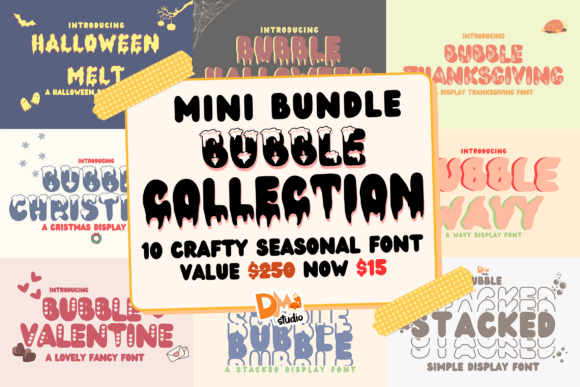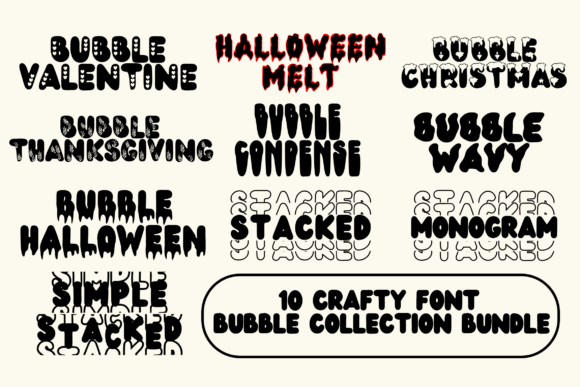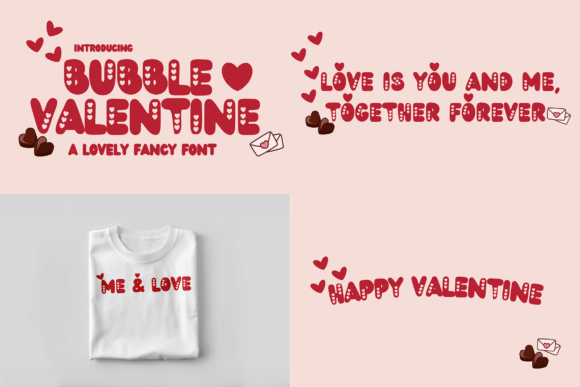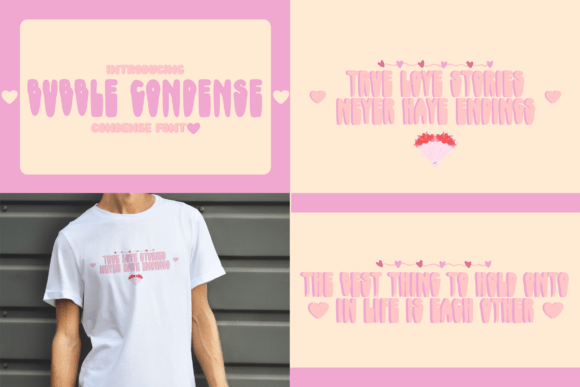
Bubble Collection Font
About the Bubble Collection Font
Get ready to be inspired by Bubble Collection Font, a fresh and dynamic typeface for modern creators. Introducing the Bubble Collection Mini Bundle, a fun and creative set of 10 crafty seasonal fonts designed to bring joy and personality to your projects! This collection features playful and unique display fonts inspired by different festive themes, making it perfect for holiday designs, greeting cards, posters, branding, and more.
Halloween Melt – A spooky, drippy Halloween font
Bubble Halloween – A fun and eerie font with a melted effect
Bubble Thanksgiving – A warm and festive Thanksgiving-inspired font
Bubble Christmas – A cute and bubbly Christmas display font
Bubble Valentine – A romantic and playful font for Valentine’s Day
Bubble Wavy – A wavy and fun display font for creative projects
Bubble Stacked – A unique layered bubble-style font
Bubble Stacked Monogram – A unique Hollowe Stacked bubble style font
Simple Bubble Stacked – A simple Zig Zag Stacked Font
Bubble Condese – A unique Condense Style Font
Perfect for:
🎃 Halloween Invitations
🎄 Christmas & Holiday Cards
💌 Valentine’s Day Designs
🍂 Thanksgiving Menus & Posters
🎨 Creative Branding & Craft Projects
Bubble Collection Font Usage Examples
Bubble Collection Font Example